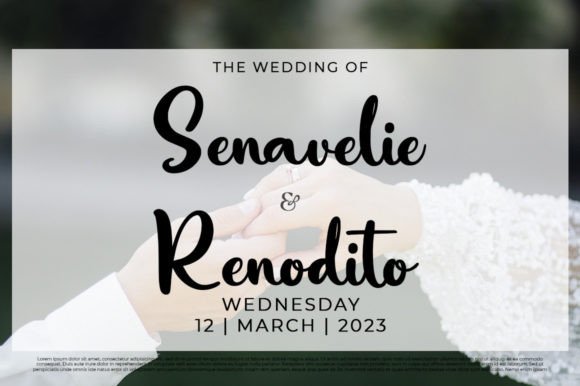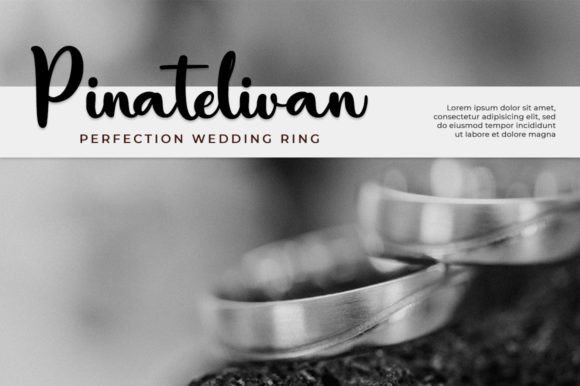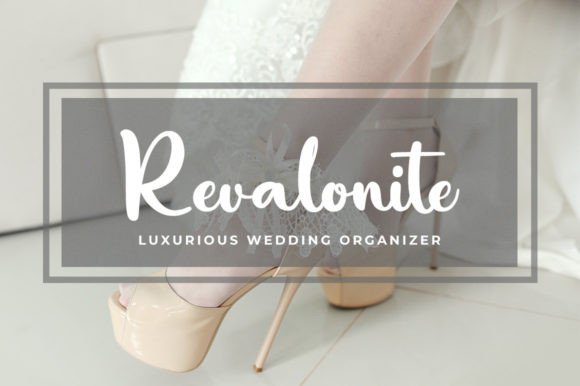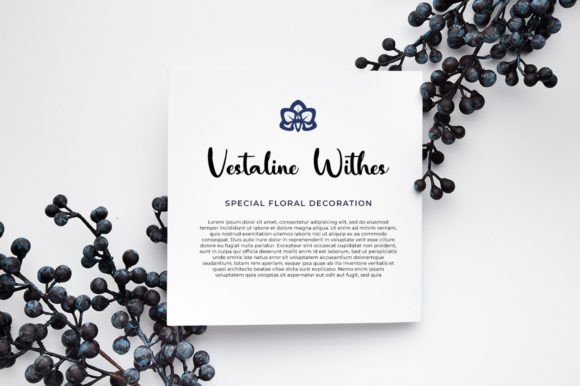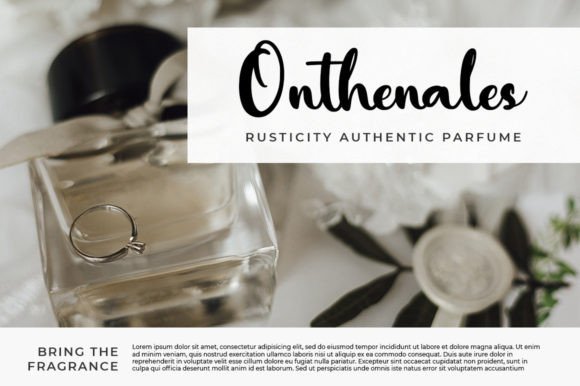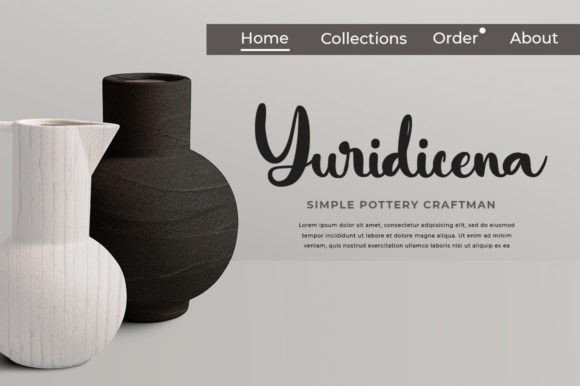
Introduction to Neapolitan Font
Do you remember the feeling of rummaging through your grandmother’s old trunk, discovering a handwritten letter or a beautiful card she had crafted with love? The imperfections and elegance of handwriting evoke a sense of warmth and personality, don’t they? That’s exactly what the Neapolitan Font aims to capture – the essence of handwritten love in a digital format.
As a designer, you’re always on the lookout for that special something to elevate your creative project. The Neapolitan Font is a valuable addition to your design resource arsenal, offering a high-quality, elegant script font that adds a personal touch to any design. With its transparent background and versatility, this font is perfect for logos, branding, invitations, and more.
Key Features of Neapolitan Font
- Unique, hand-drawn design with a distinctive flair, perfect for creative projects.
- High-quality font with transparent background, ideal for designers who want to add a personal touch.
- Includes a comprehensive character set, including uppercase and lowercase letters, numbers, and punctuation marks.
- Perfect for designers looking for a unique, high-quality font to add a creative touch to their projects.
Honest Review: Neapolitan Font
As a designer, I’m always on the lookout for high-quality design resources that can elevate my creative projects. The Neapolitan Font caught my eye with its unique and playful style. I decided to give it a try and see how it performs in real-world applications.
Here are some of the things that work well with the Neapolitan Font:
- Unique and customizable characters: The font offers a wide range of characters and symbols that can be customized to fit your design needs.
- Transparent background: The font’s transparent background makes it easy to combine with other design elements and create a cohesive look.
- High quality: The font is well-designed and looks great at various sizes and resolutions.
- Some characters may not be compatible with all operating systems: I experienced some issues with character rendering on certain operating systems, which was a bit frustrating.
- Limited font weight options: The font only comes in a few weight options, which may limit its versatility in certain design contexts.
- Not ideal for body text: The font is best suited for headlines and titles, as its playful style may be distracting in large blocks of body text.
Overall, I’d say the Neapolitan Font is a solid design resource that can add a touch of personality to your creative projects. While it may have some limitations, its unique style and high-quality design make it a great choice for designers looking to add some flair to their work.
Use the Neapolitan Font to add a touch of elegance to your creative project. Pair it with a high-quality image or design element to create a stunning visual effect. You can also use it as a design resource to add a unique touch to your branding or marketing materials.
The Neapolitan Font is perfect for a wide range of creative projects, including wedding invitations, branding materials, and social media graphics. It’s also a great design resource for bloggers, designers, and marketers looking to add a unique touch to their work.